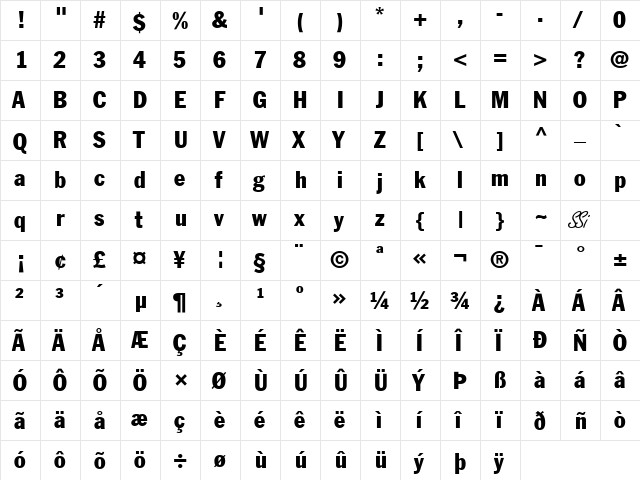
Franklin Gothic Condensed SSi Condensed Font Preview
Design Context for Franklin Gothic Condensed SSi Typeface
Franklin Gothic Condensed SSi takes a clean, functional approach — its unadorned letterforms prioritise legibility and work reliably across screen and print environments. The condensed width makes it efficient for tight spaces without sacrificing legibility.
Font Pairing: Works well alongside a characterful serif or display font that can carry the expressive load while Franklin Gothic Condensed SSi handles the functional copy.
Pro Tip: Try Franklin Gothic Condensed SSi in all-caps with moderate tracking for navigation and label copy — it performs well in systematic UI contexts.